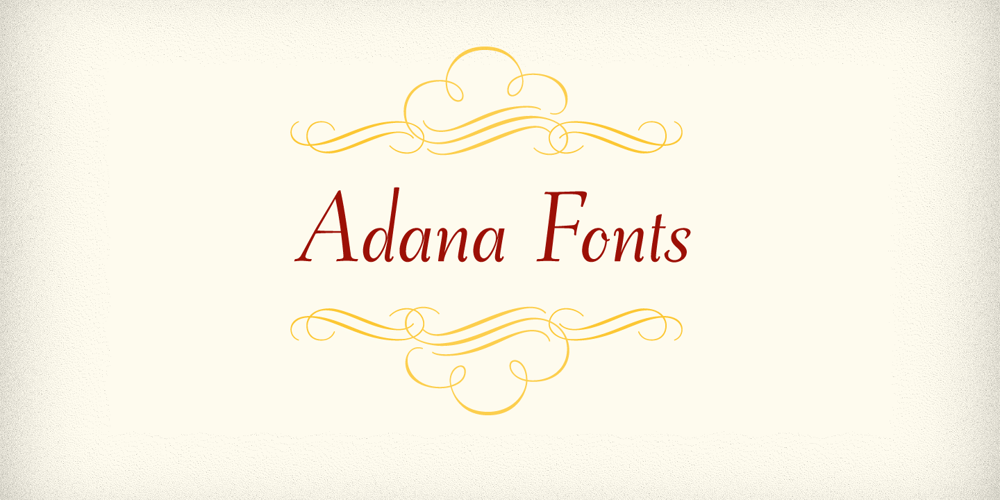
Adana
Adana font
Adana Font Family was designed by Andreas Seidel, Wilhelm Berg and published by astype. Adana contains 5 styles and family package options. The roots of Adana going back to the year 1930, to the Berlin-based German graphic designer Wilhelm Berg. His typeface can be interpreted as an answer to Lucian Bernhards Schönschrift. Adana Circular and Regular play well together in all kinds of adverts, as well with designs like Bodoni or Didot.